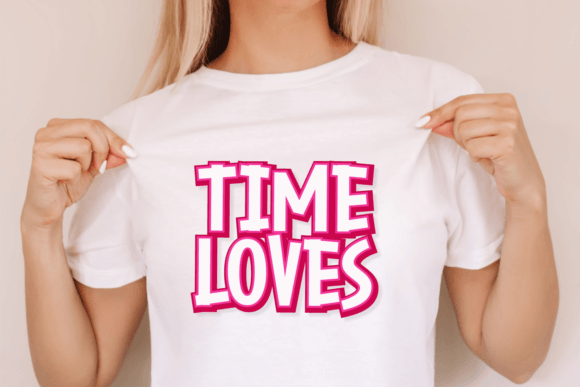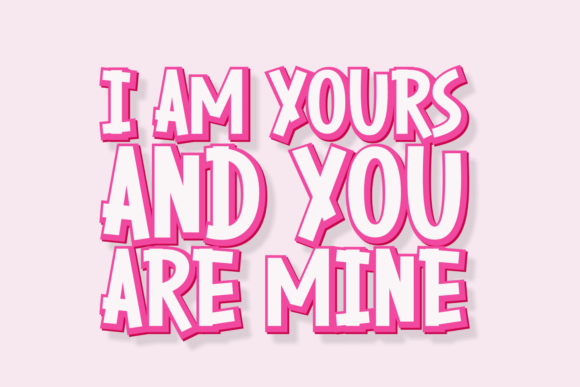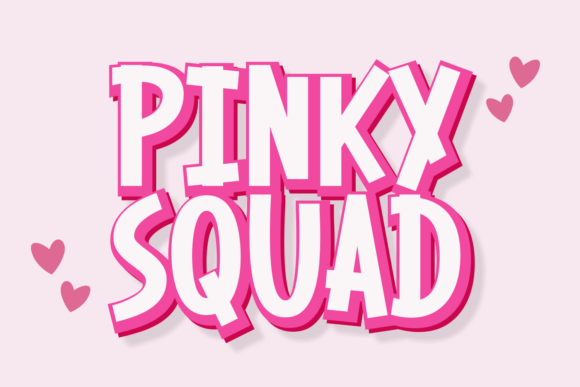
Introduction to Pinky Girls Font
Have you ever been browsing through design inspiration boards, and suddenly, a font catches your eye? For many designers, that moment of discovery can be a game-changer. It’s the spark that ignites a creative project, and with the right font, the possibilities become endless. For those who’ve experienced this thrill, we’re excited to introduce the Pinky Girls Font, a delightful display font that’s sure to captivate your imagination.
This enchanting font is more than just a pretty face – it’s a high-quality design resource that brings a unique touch to any project. With its transparent background and adorable aesthetic, Pinky Girls Font is perfect for designers seeking to add a playful twist to their creations. And the best part? It’s available for free download, making it an accessible and valuable addition to any design arsenal.
Key Features of Pinky Girls Font
- Includes a wide range of characters and glyphs for versatile use
- Designed with a playful and feminine touch, ideal for fashion, beauty, and lifestyle brands
Honest Review: Pinky Girls Font
I recently came across the Pinky Girls Font, and I must say it’s a high quality design resource that caught my attention. As a designer, I’m always on the lookout for unique and creative fonts that can elevate my projects.
- Unique and playful design style
- High quality and crisp typography
- May not be suitable for professional or corporate projects
- Some users may find the design style too playful or childish
Overall, I’m impressed with the Pinky Girls Font. It’s a great addition to any designer’s toolkit, and I can see it being used in creative projects such as children’s books, cartoons, or even social media graphics. If you’re looking for a fun and quirky font to add some personality to your design, the Pinky Girls Font is definitely worth checking out.
Tips for Getting the Most Out of Pinky Girls Font
Use the Pinky Girls Font in conjunction with other design elements to create a visually appealing design. Experiment with different font sizes, colors, and styles to find the perfect combination.
Common Use Cases for Pinky Girls Font
The Pinky Girls Font is perfect for designing children’s products, educational materials, and family-friendly content. You can also use this font for branding and marketing materials that require a playful and approachable tone.